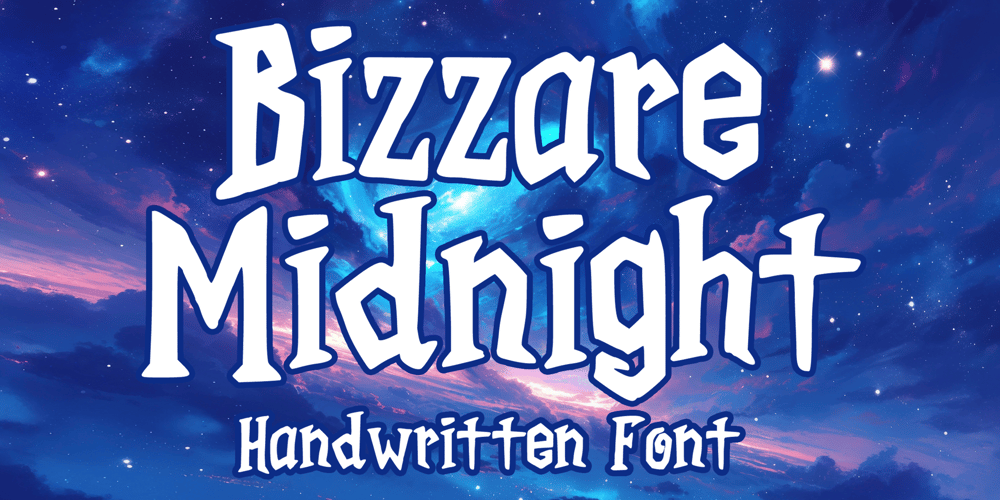
Bizzare Midnight Font Family was designed by Gabriel Valentinus and published by Mvmet. Bizzare Midnight contains 1 styles and family package options. Bizzare Midnight is a fun and playful gothic style display font, suitable for your Halloween and Christmas themed designs. It will elevate a wide range of design projects to the highest level. You can use this font for many design ideas such as stickers, t-shirt designs, amazing logo designs, magazine or book covers, comics, cartoon drawings, daily typing, and many more. This font will add a super cool touch to your designs!